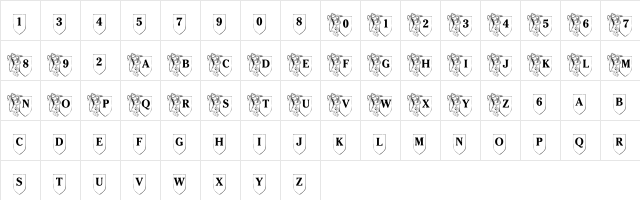
LMS Family Shield Regular
Design Context for LMS Family Shield Typeface
LMS Family Shield is a composed and adaptable typeface that performs quietly and consistently across a wide range of design contexts.
Pro Tip: Use LMS Family Shield in both headline and body roles to test its range before committing to a single application.